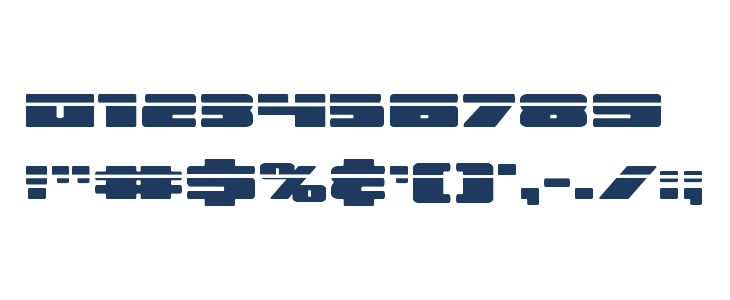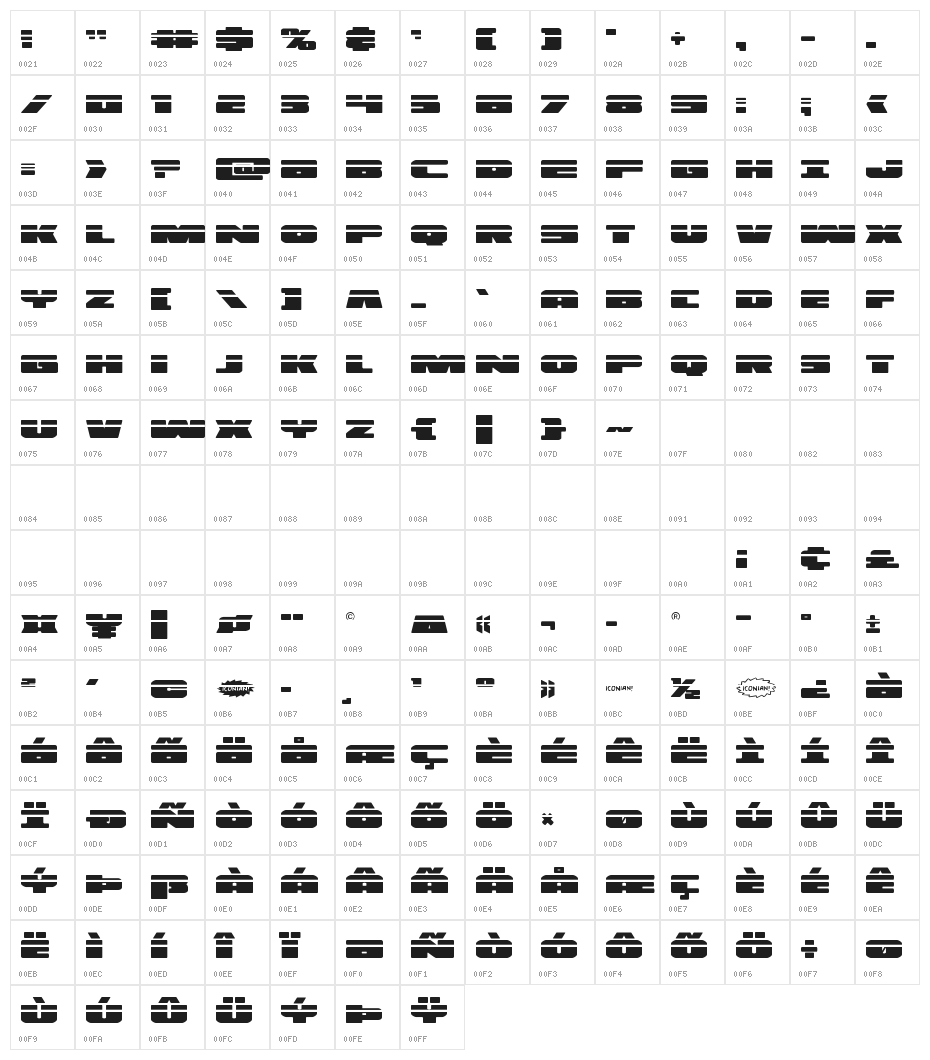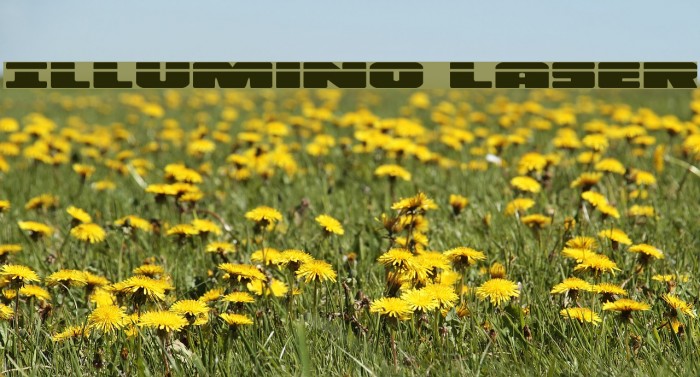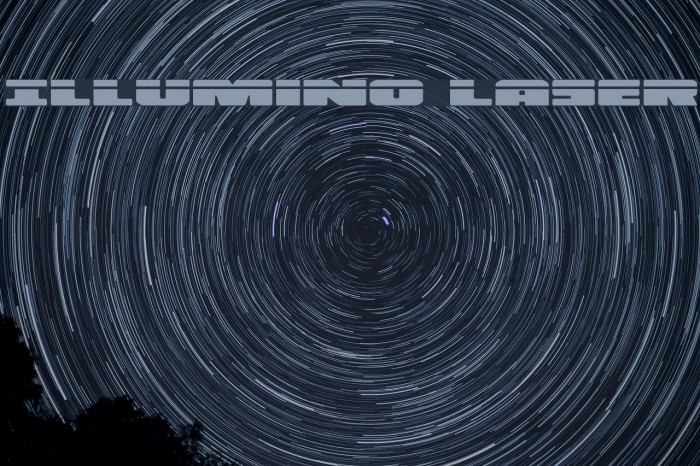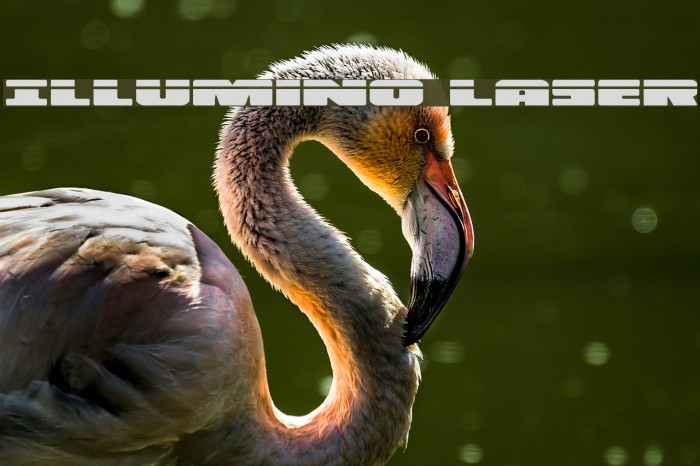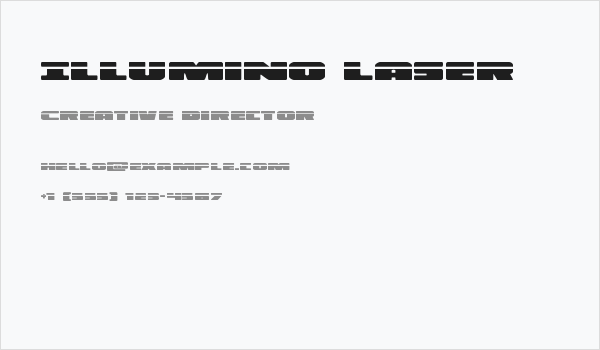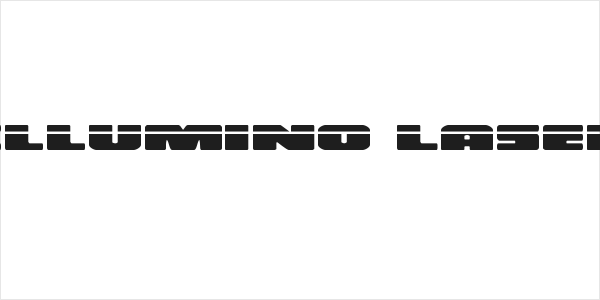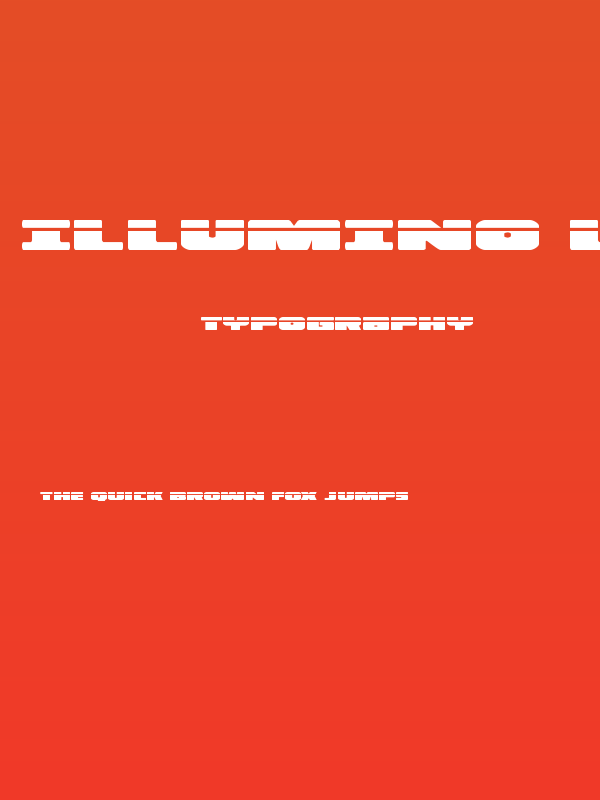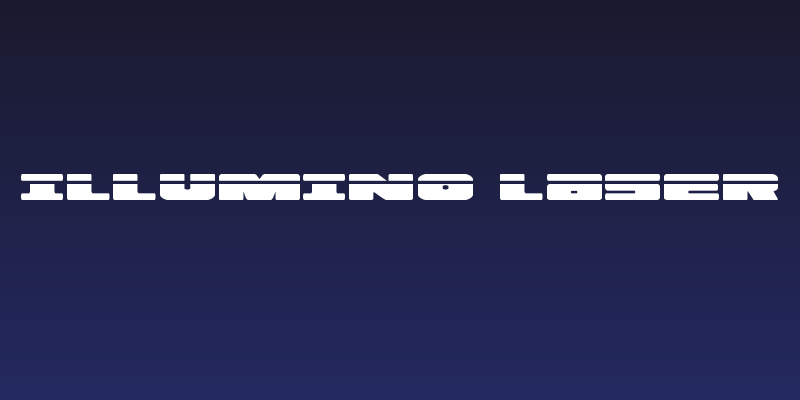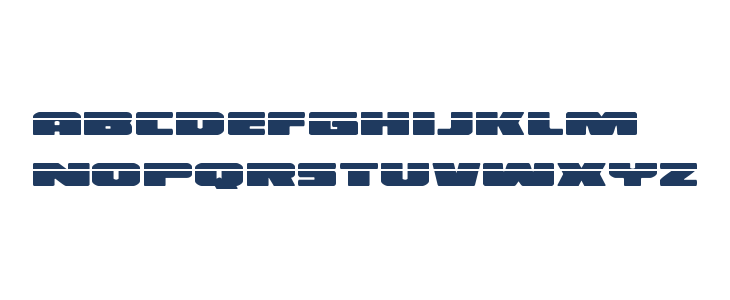
This font features a bold, futuristic design with a strong geometric structure. The characters are constructed with a blocky, angular style that gives them a high-tech, digital appearance. The uppercase and lowercase letters share a consistent design, emphasizing uniformity and precision. The numbers and special characters maintain the same aesthetic, ensuring a cohesive look across all glyphs. The font's unique style makes it ideal for projects that require a modern, cutting-edge feel.
| Proposed Projects | Ideal for technology branding, sci-fi themed designs, video game interfaces, and futuristic posters. |